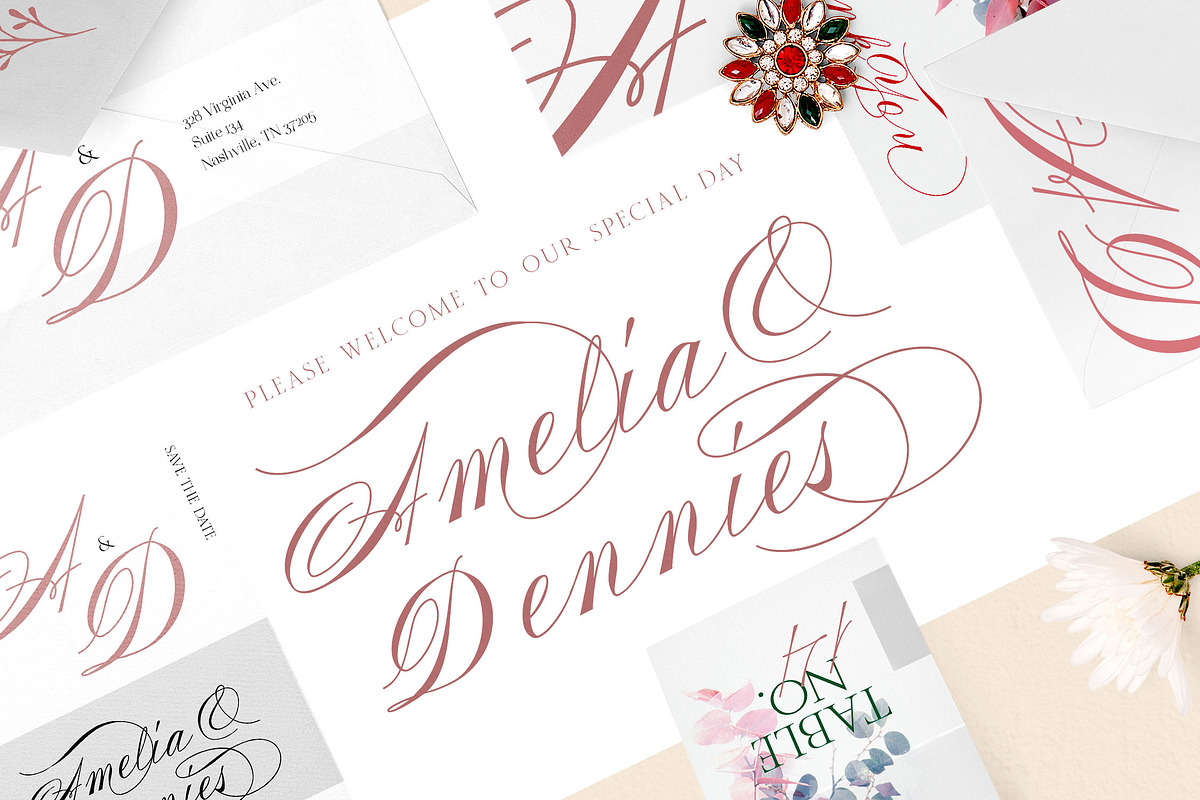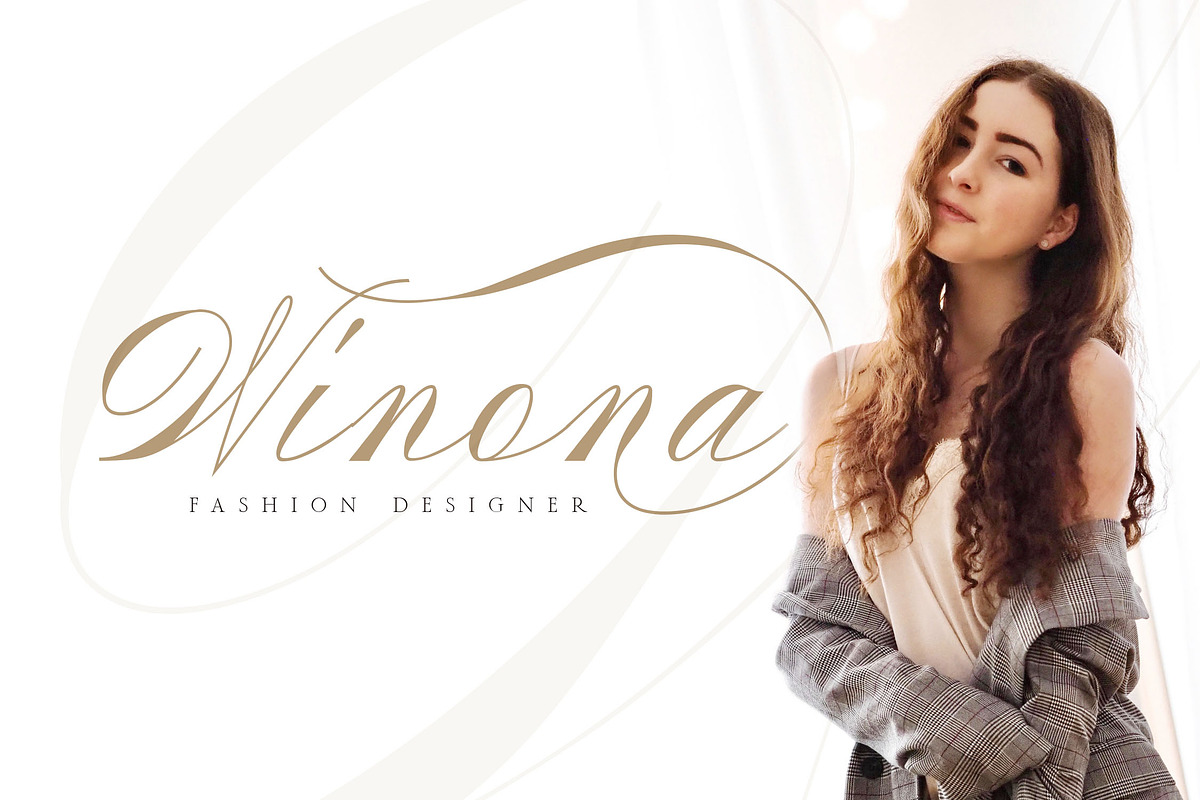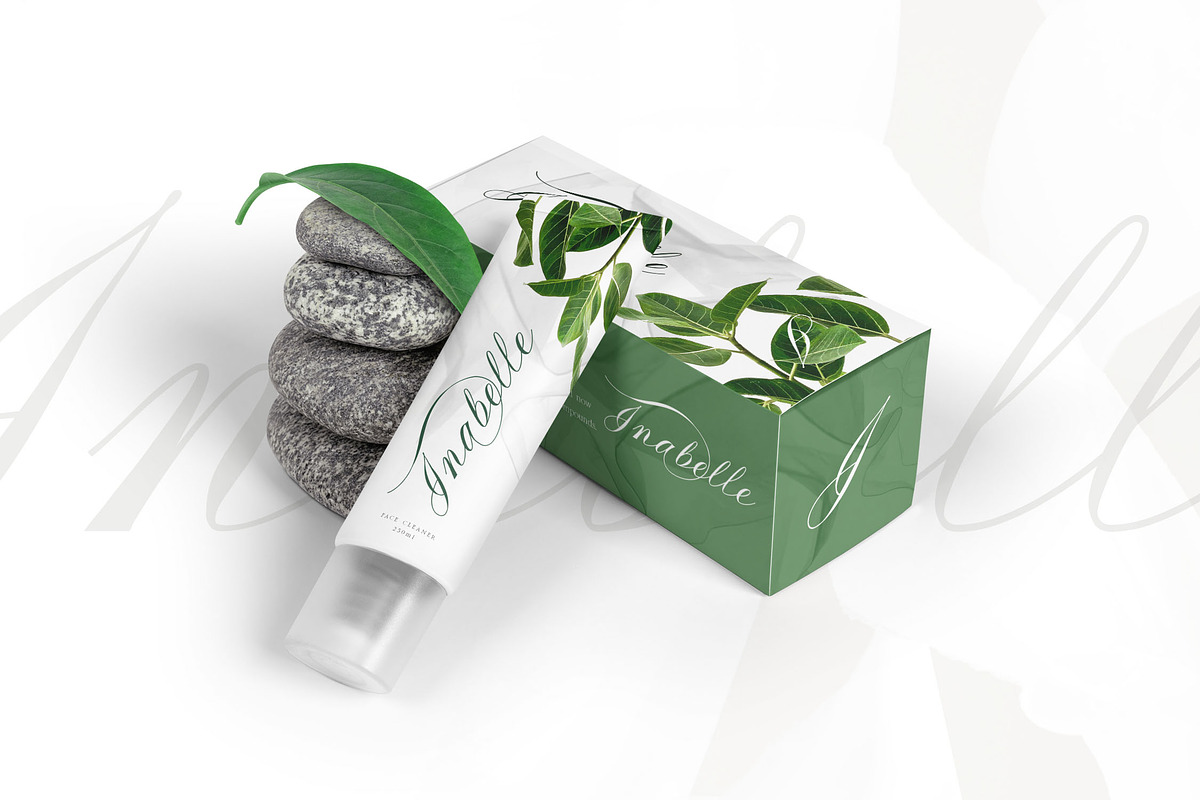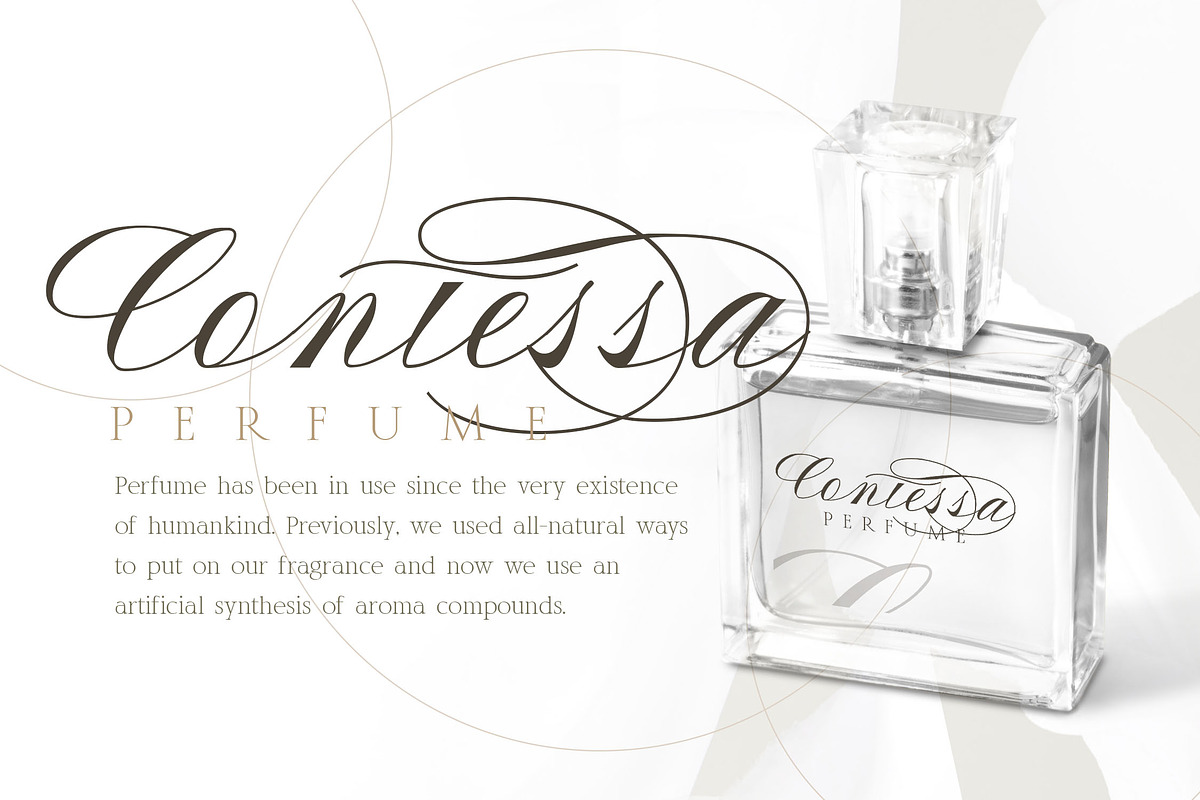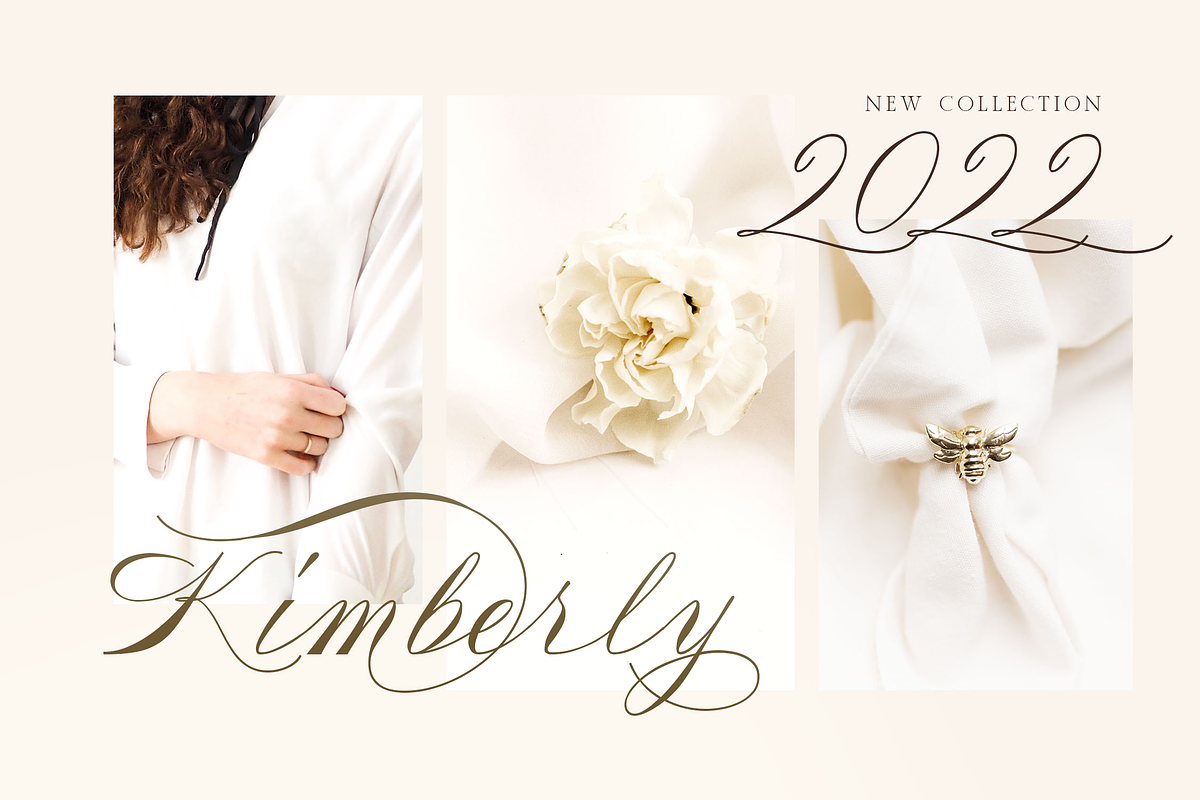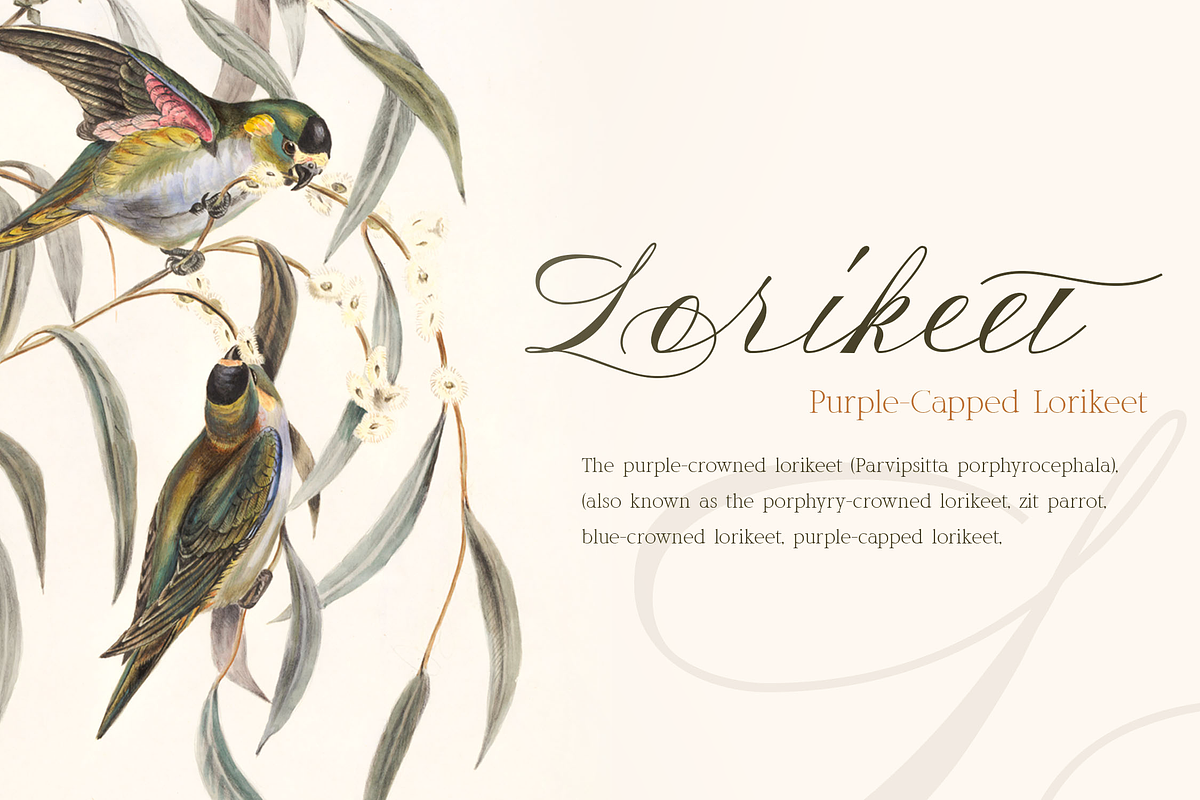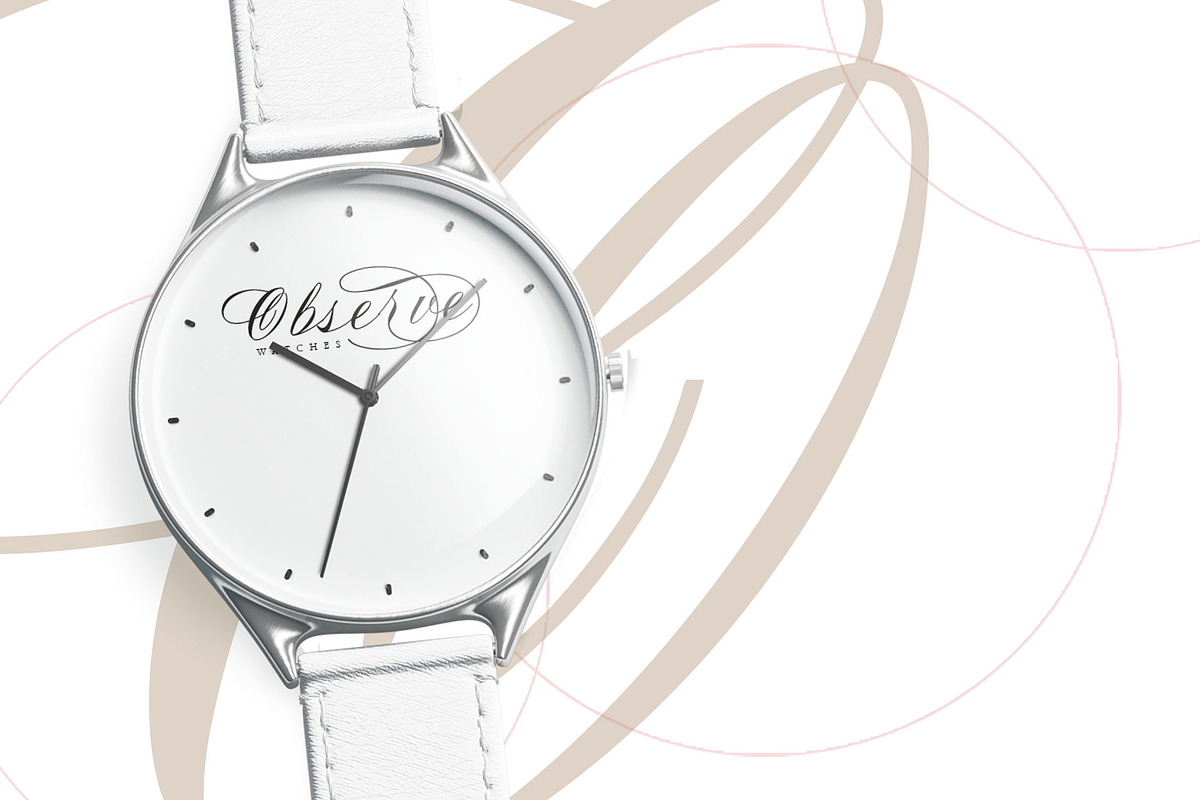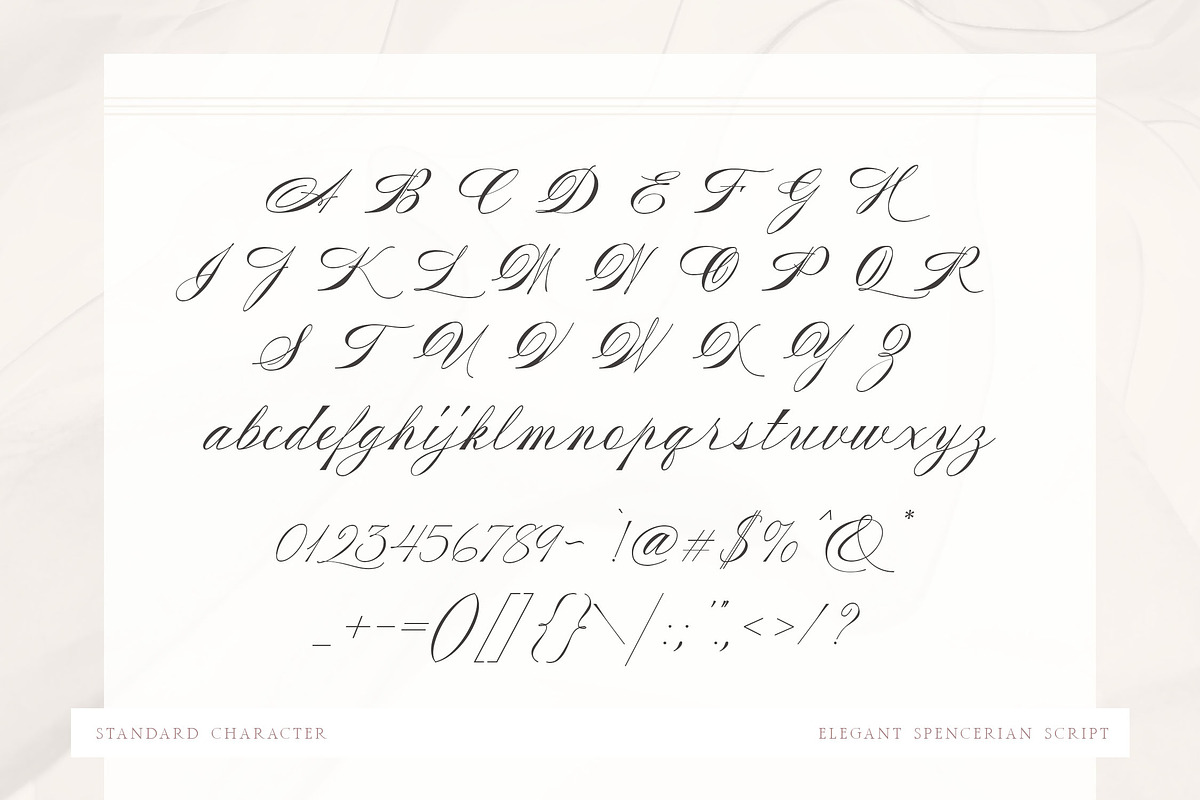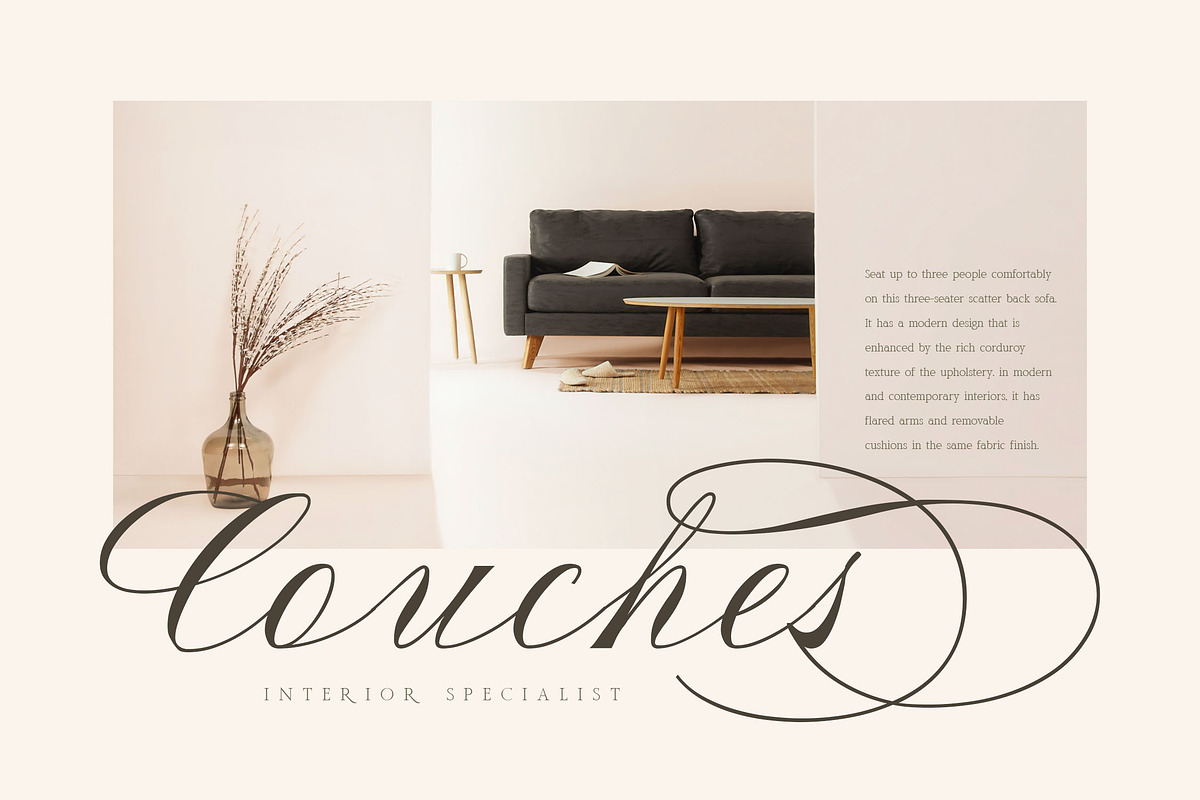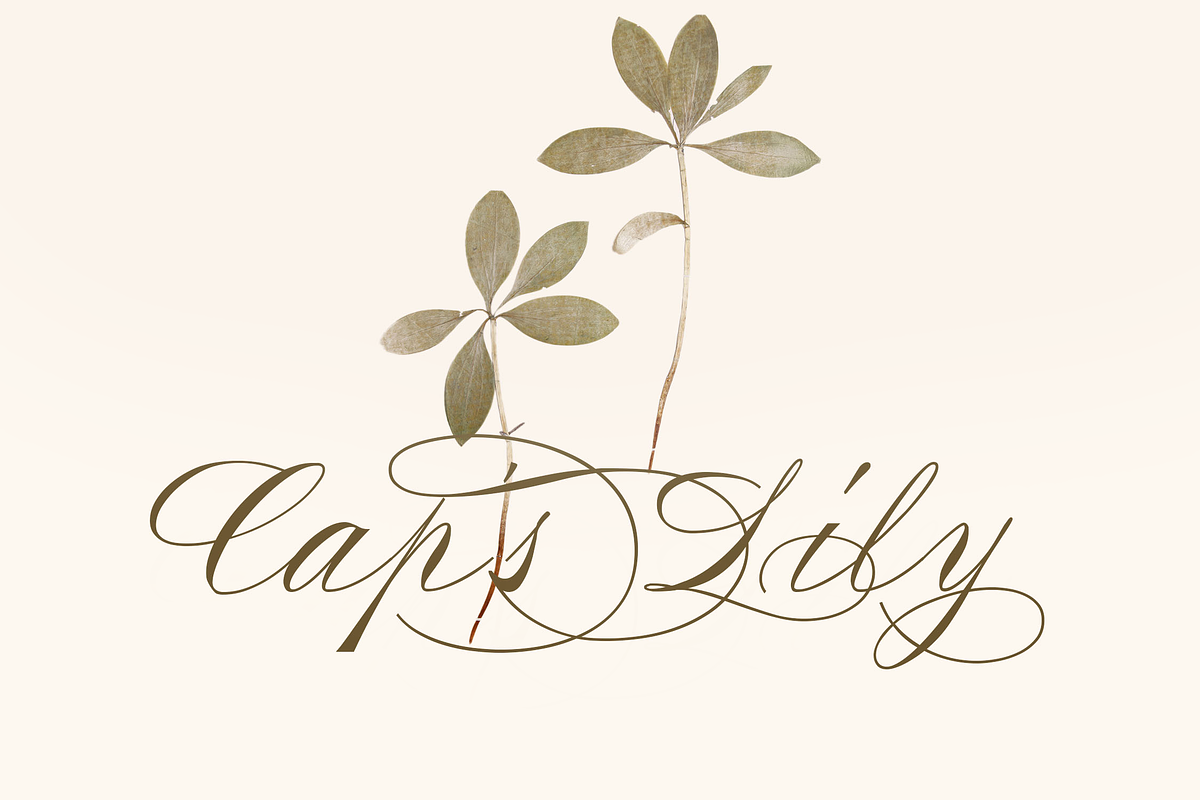
Alysond - Spencerian Script
Alysond - Elegant Spencerian Calligraphy Font - Fancy Vintage Classic Script
The elegant flow and classic calligraphy style makes it perfect for royal branding, wedding design, blogging, social media, cosmetic and skincare design, social media marketing, restaurant branding, invitation cards or simply use it in your next design project.